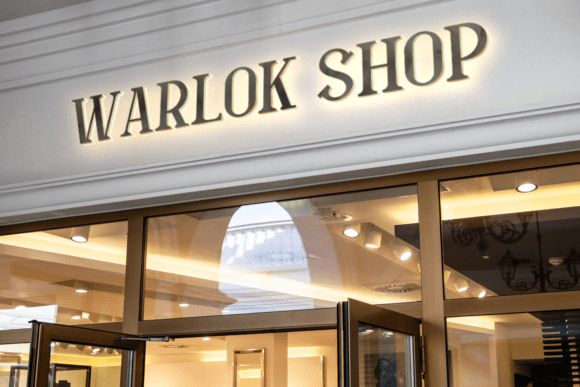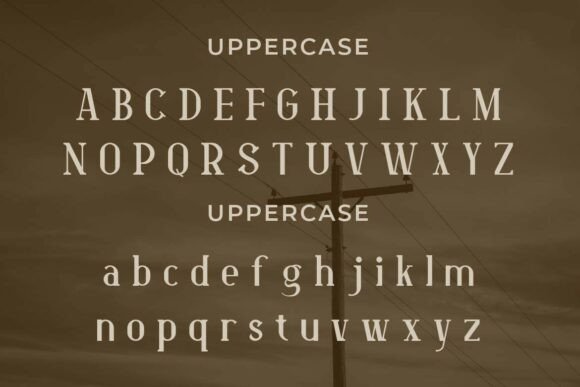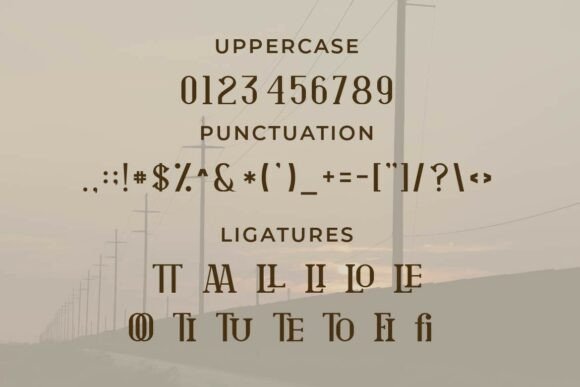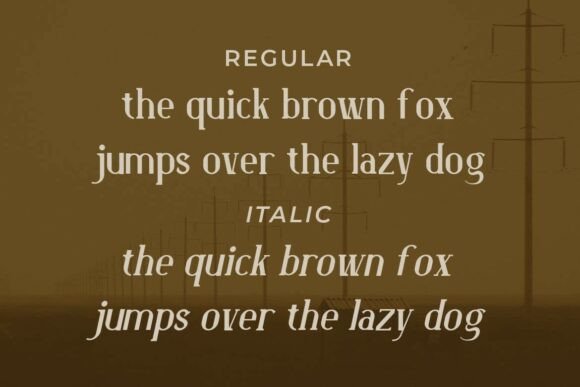
Introduction to Portile Font Font
Fonts play a crucial role in design, and the Portile Font font is a typeface that brings both character and versatility to any project. Whether you’re working on a branding project, a website, or a print design, the Portile Font font offers a unique style that can elevate your work.
| 📌 Font Name | Portile Font |
| 👤 Author | Artiveko |
Portile is a sophisticated serif font that blends classic elegance with modern finesse.
Featuring high-contrast strokes, graceful curves, and carefully balanced proportions, Portile brings a touch of luxury and tradition to contemporary design Perfect for branding, editorial layouts, book covers, fashion lookbooks, packaging, and wedding stationery.
Key Features of Portile Font Font
Why Choose Portile Font Font?
The Portile Font font is more than just a typeface – it’s a design tool that helps you communicate your message with style and clarity. Its unique character set and versatile design make it suitable for a wide range of applications, from elegant invitations to bold headlines.
With its carefully crafted letterforms and balanced proportions, the Portile Font font ensures readability and visual appeal across all mediums.
What makes Portile Font font special?
The Portile Font font stands out with its unique design, exceptional readability, and versatility across various design applications.